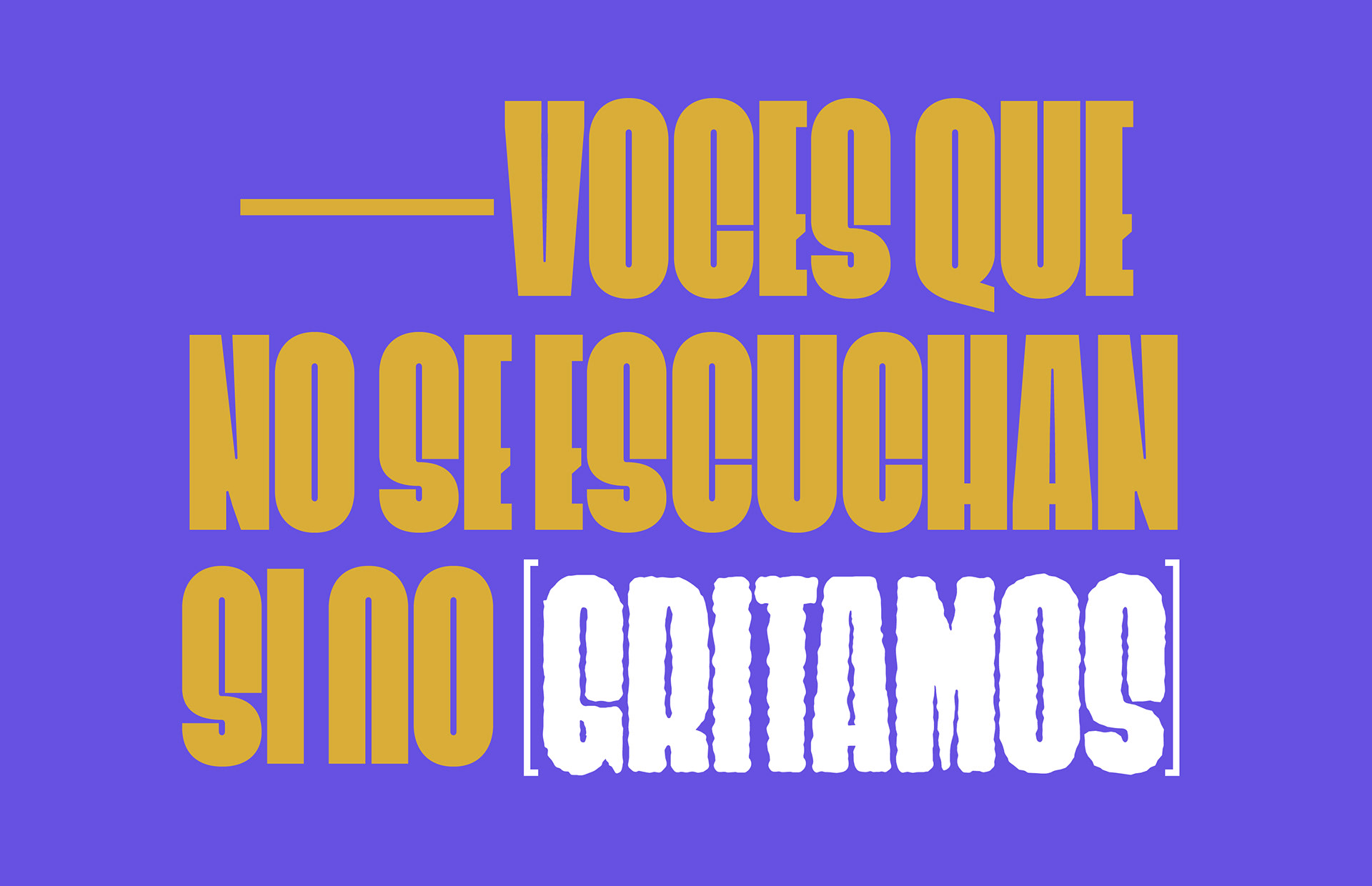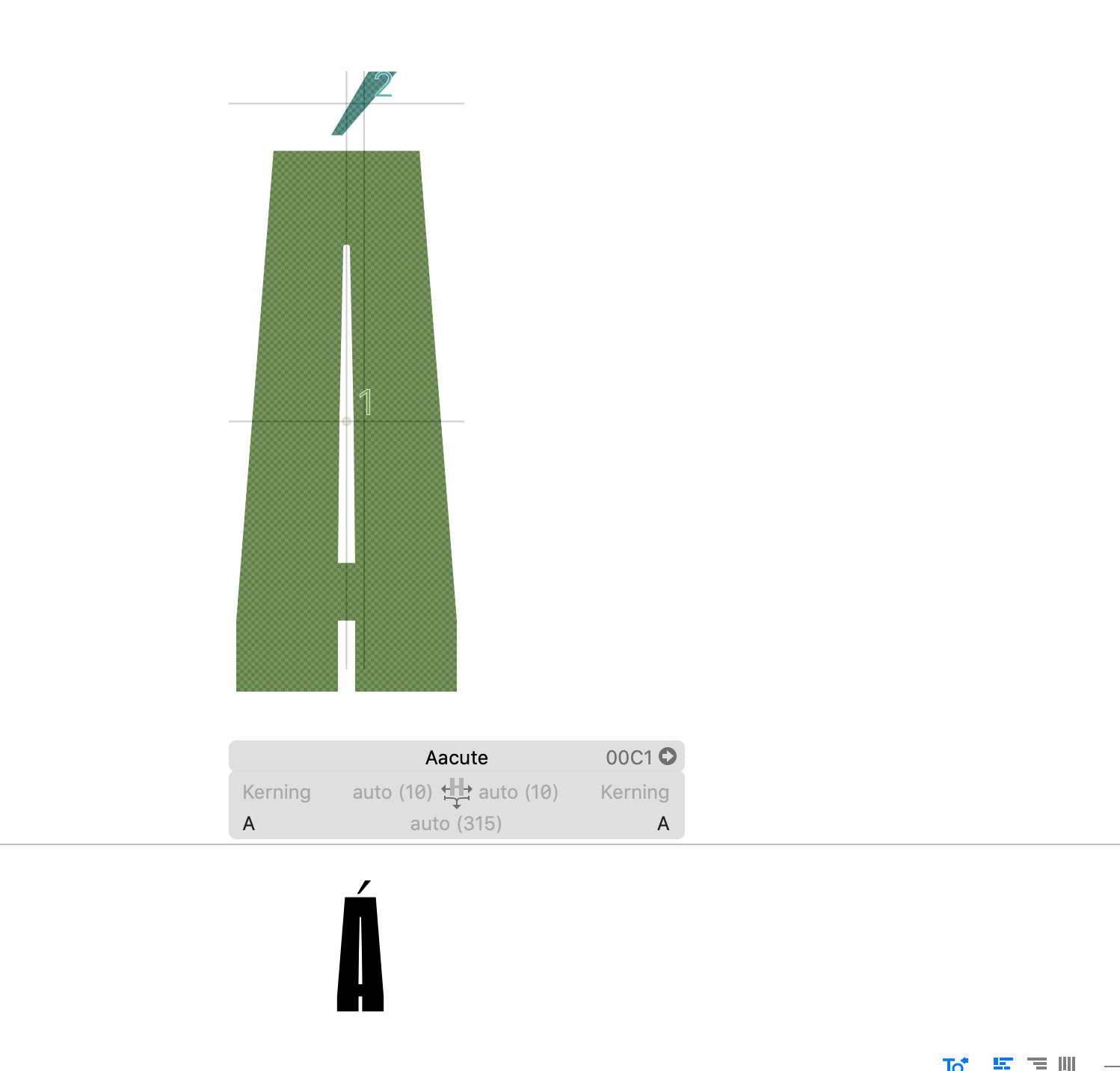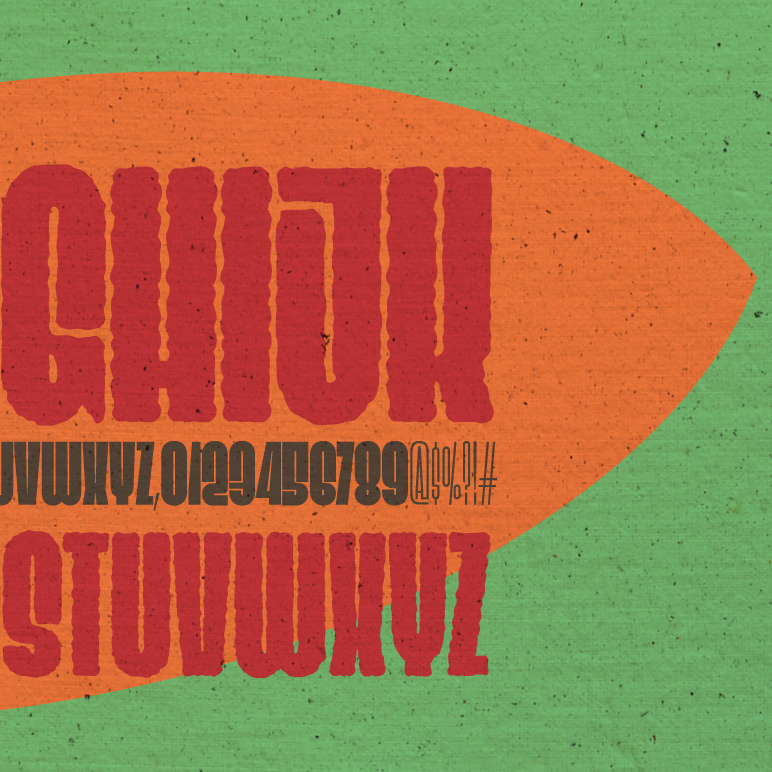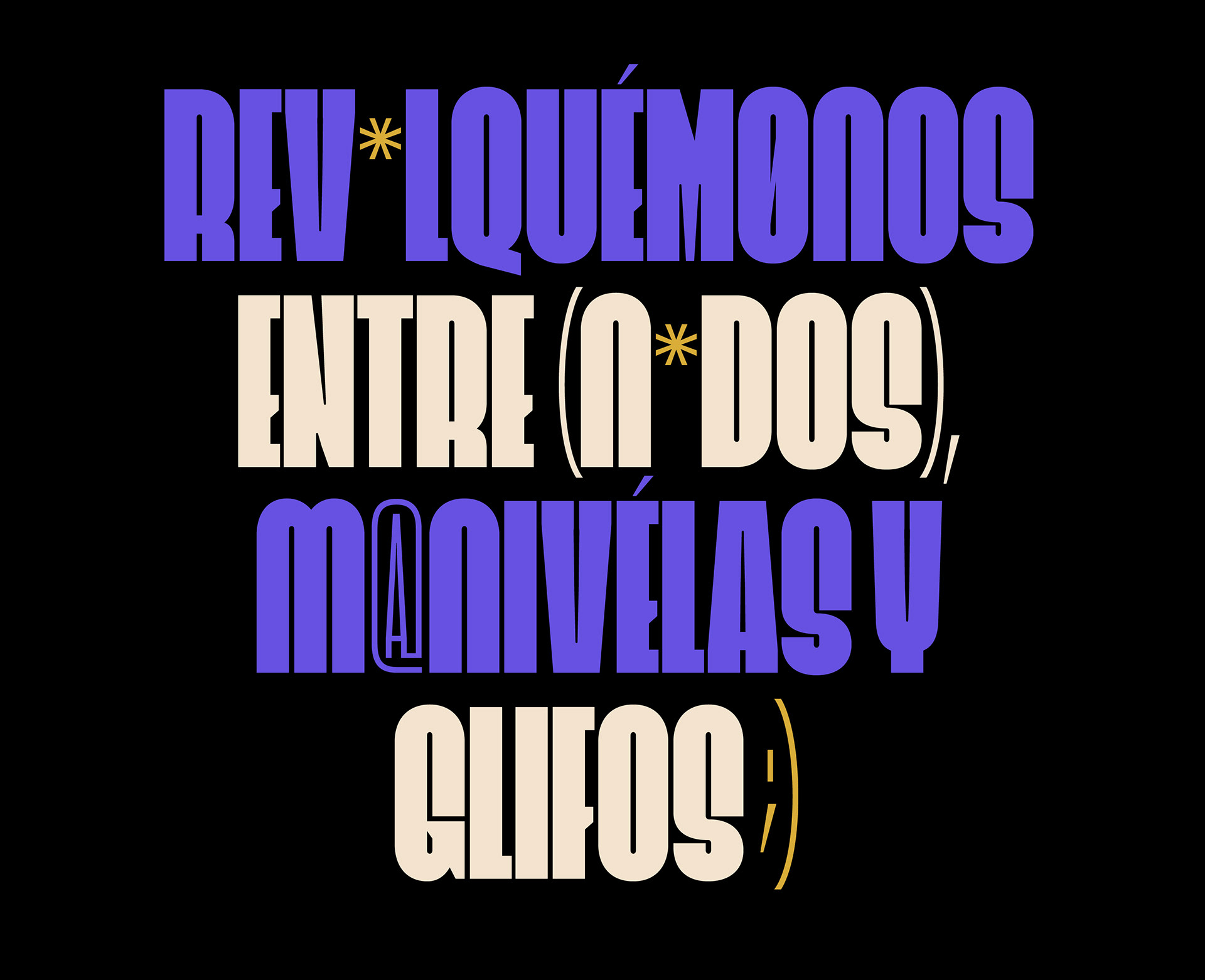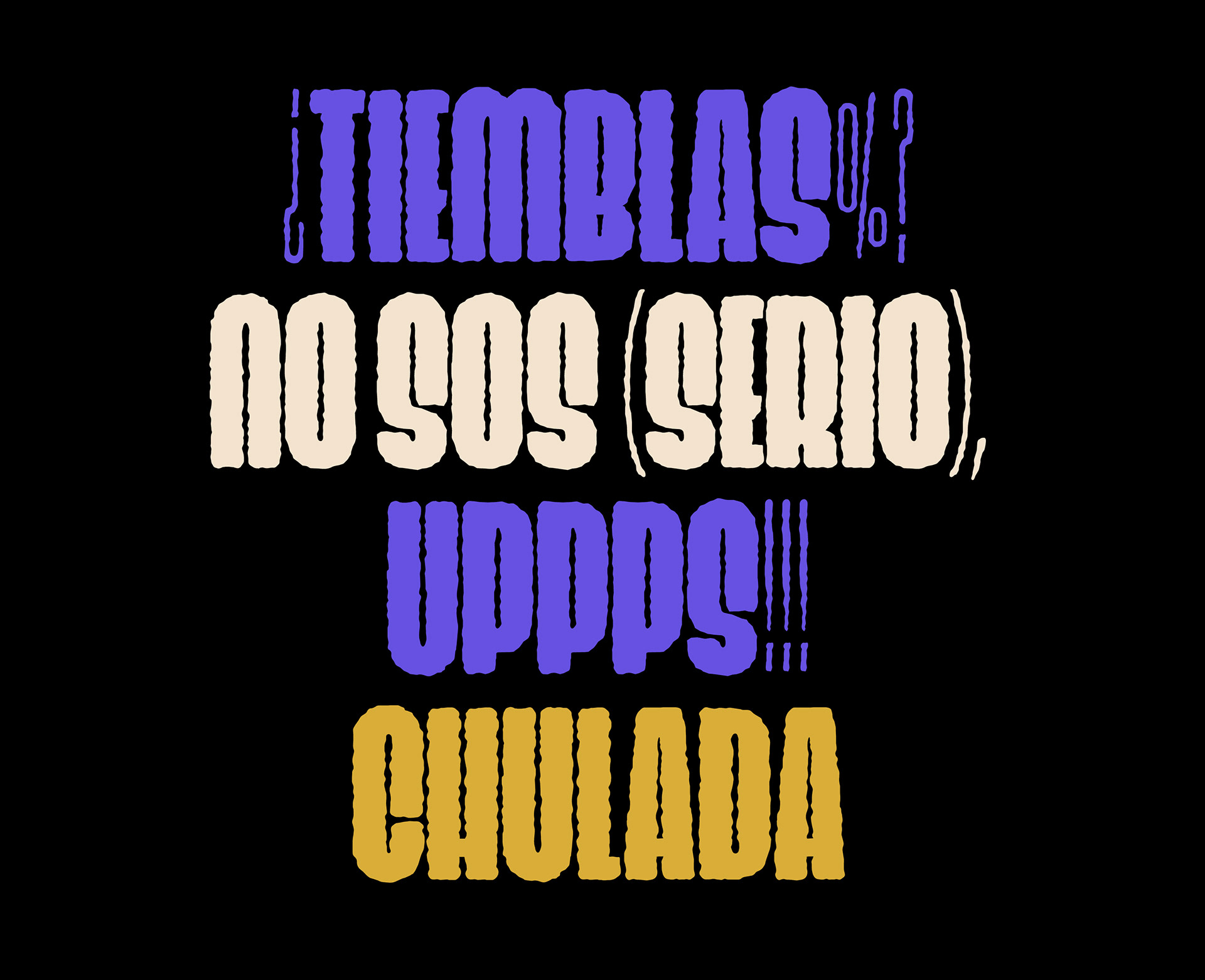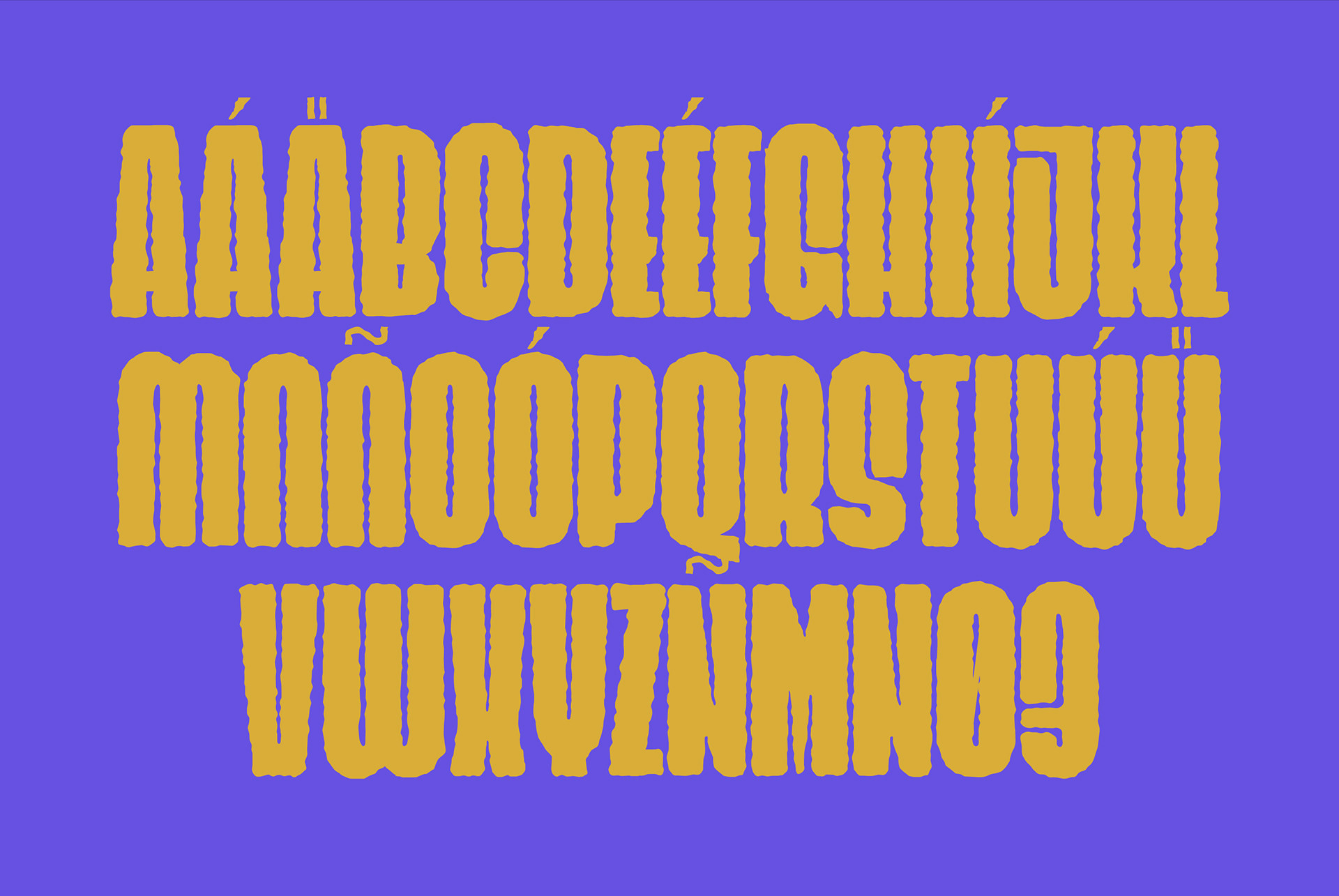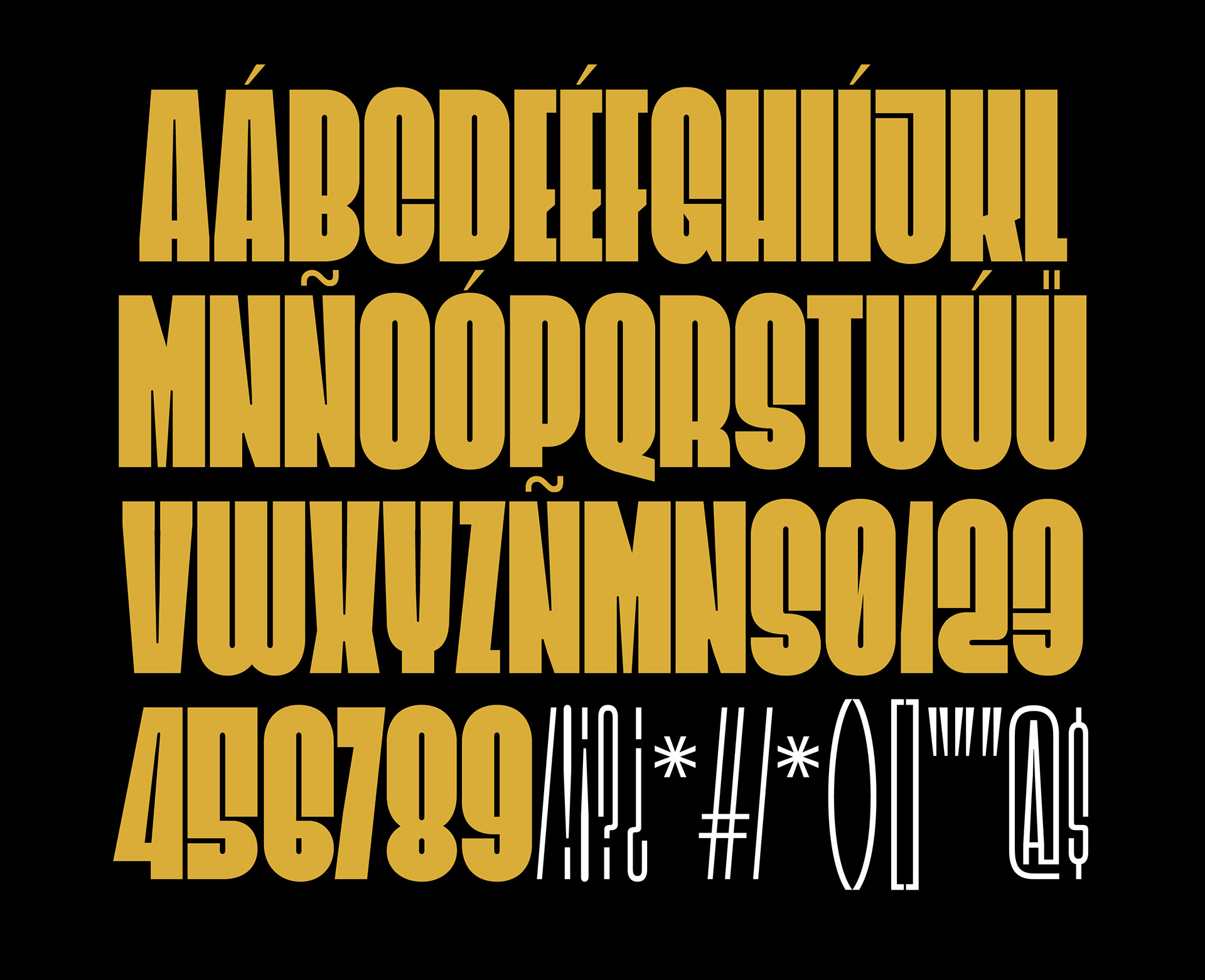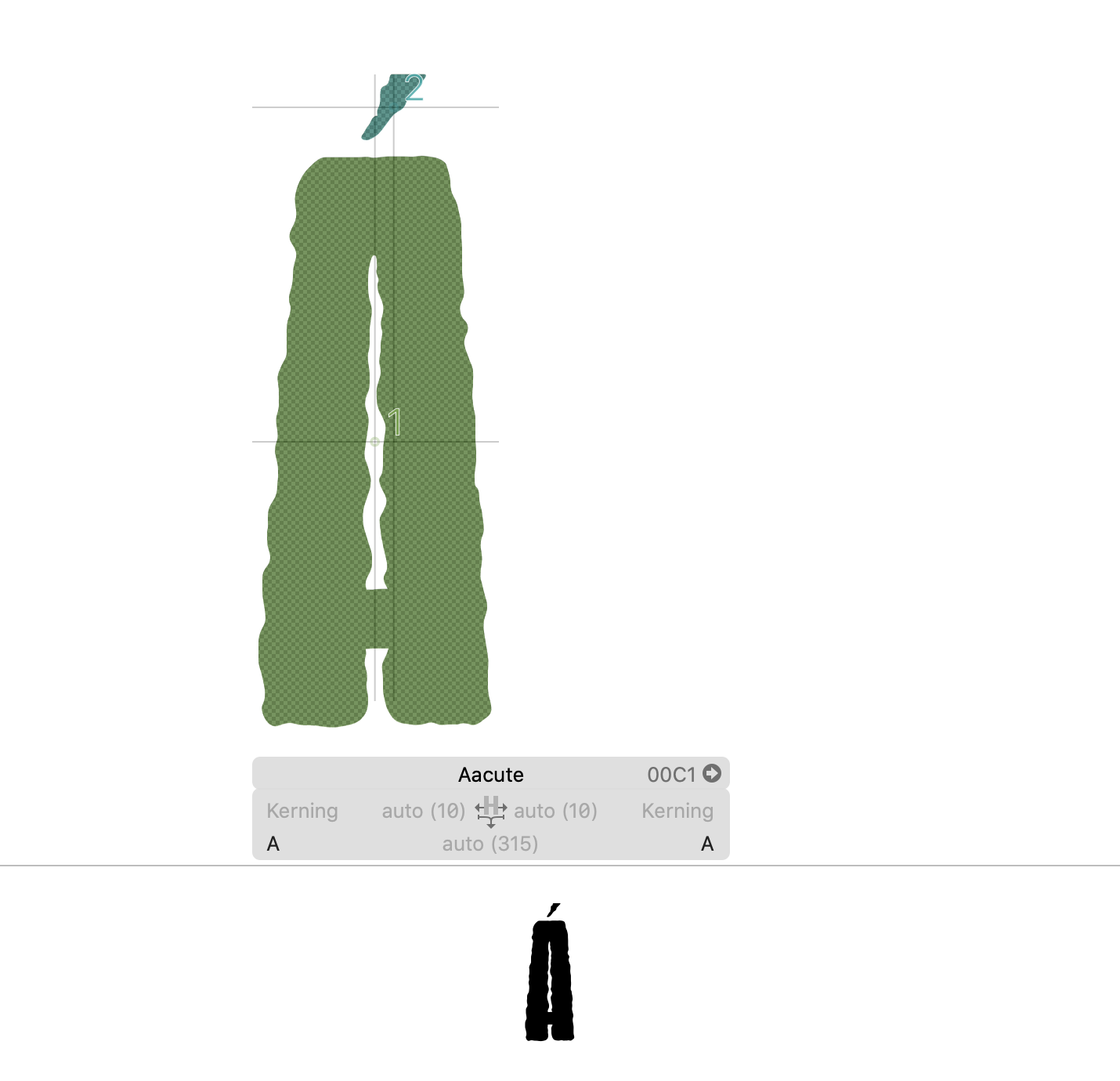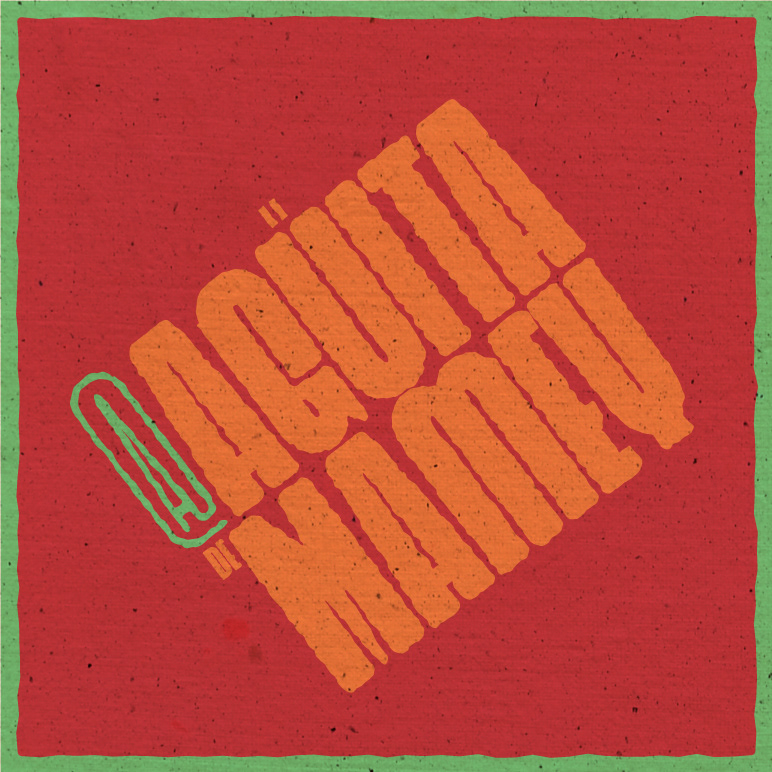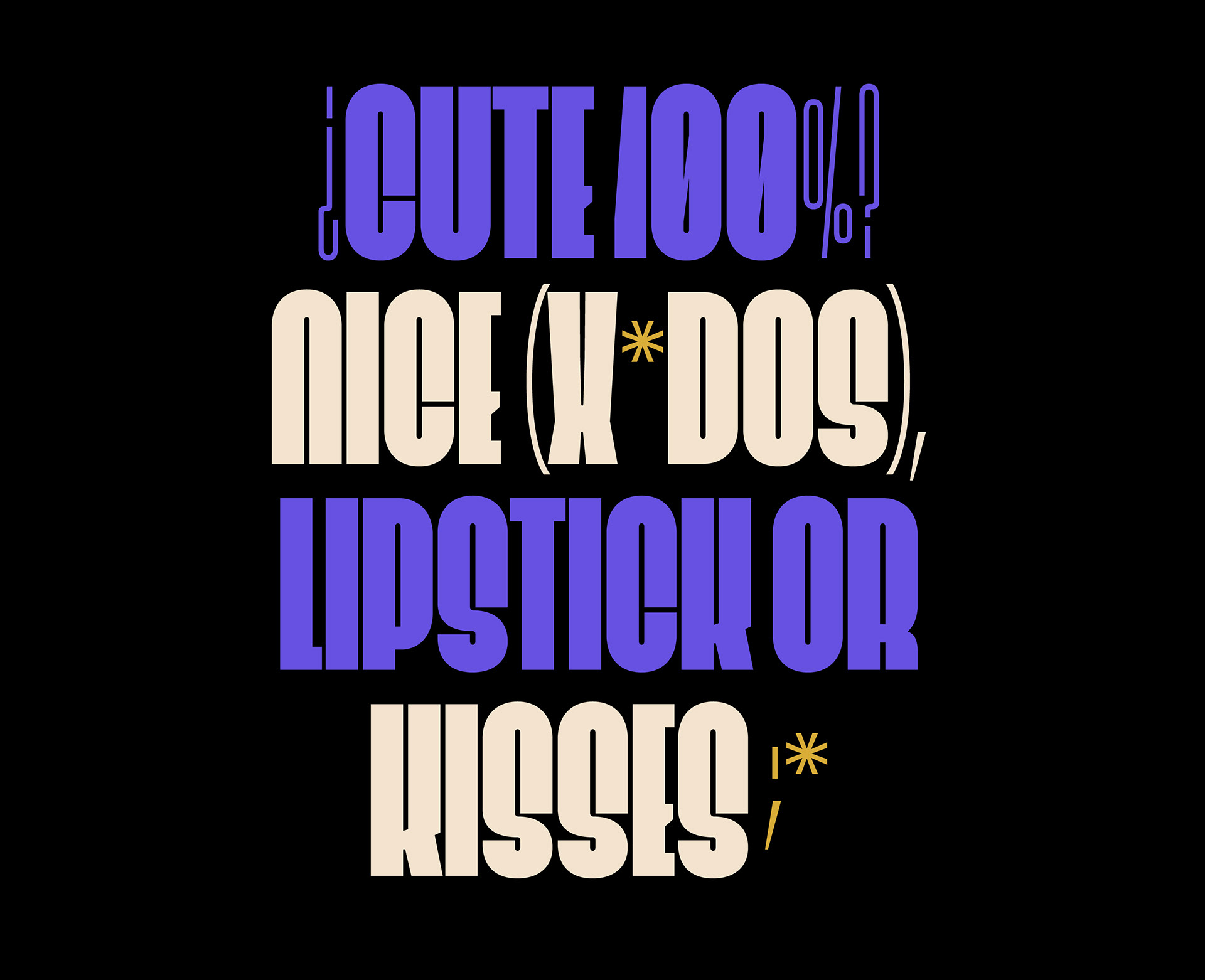
Chula type
A display typeface designed for bold, short, and playful messages. Its narrow counters and strong vertical proportions give it a distinctive personality and striking visual presence.
Alongside the solid version, a wobbly companion style was created to complement the family, adding a more organic, authentic, and playful character while expanding its expressive range.